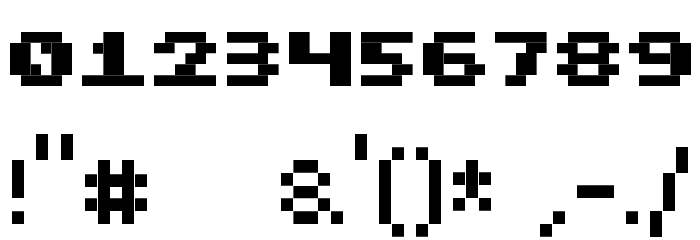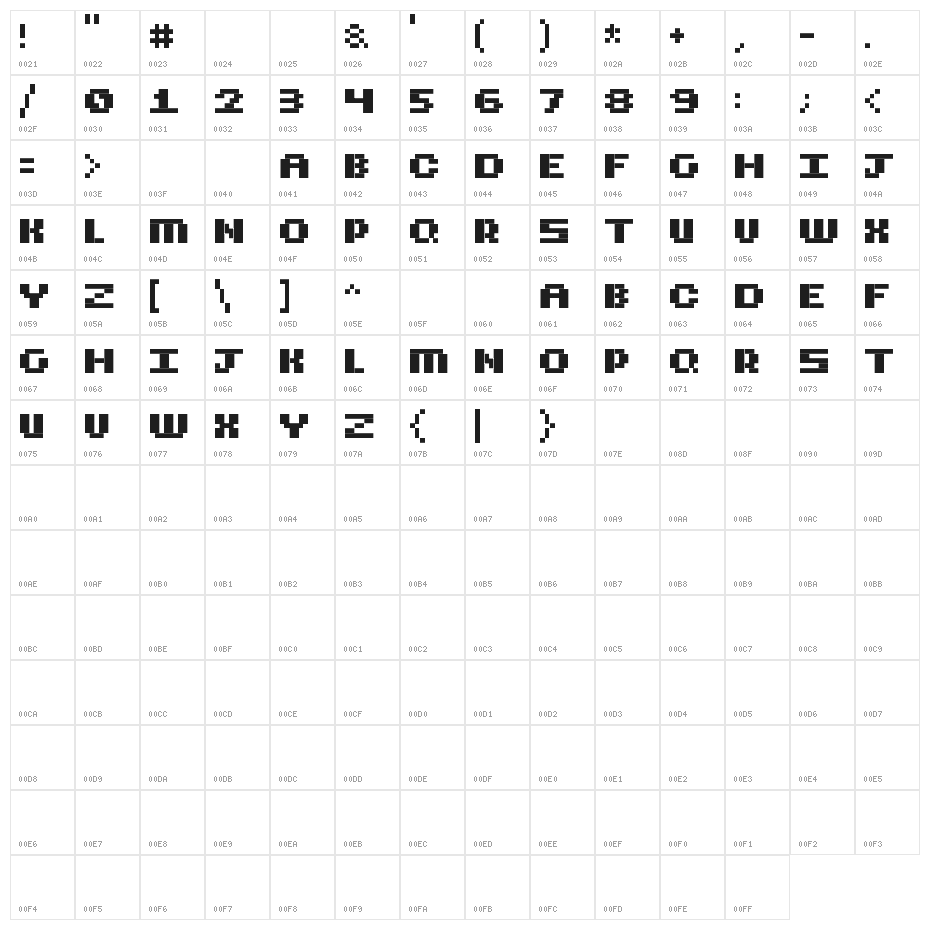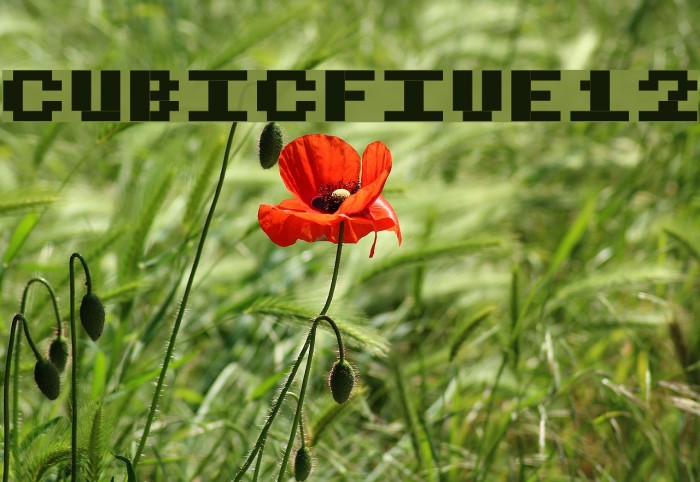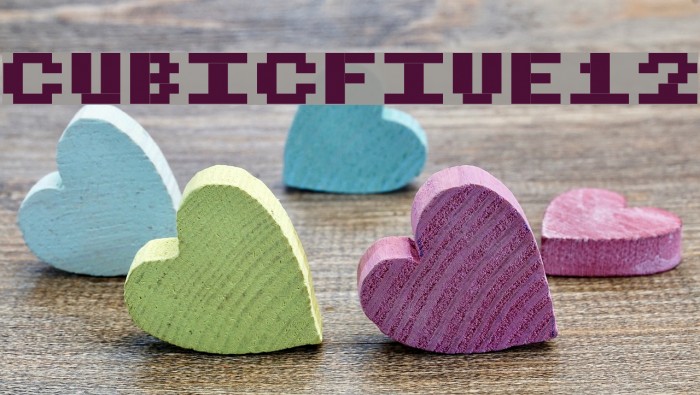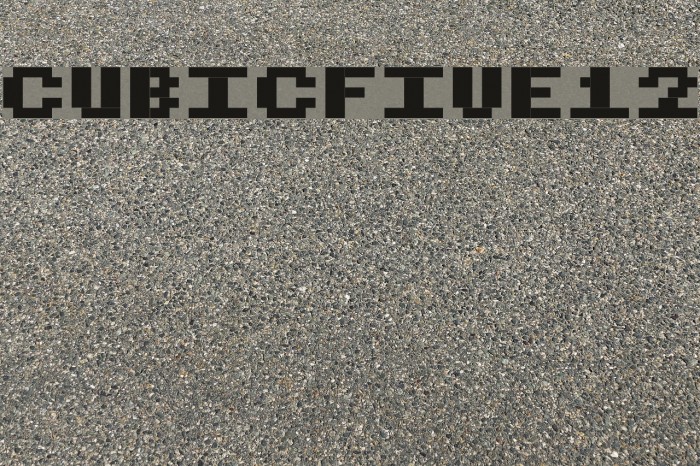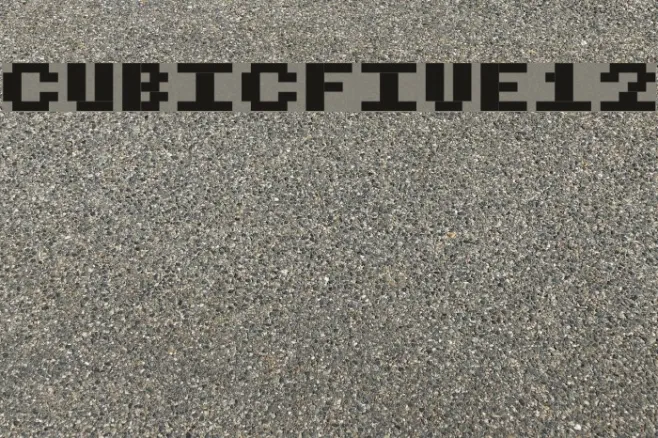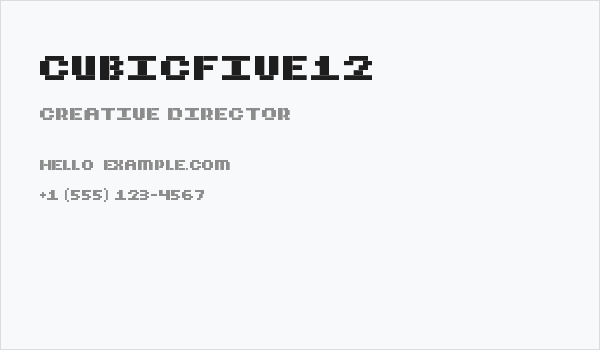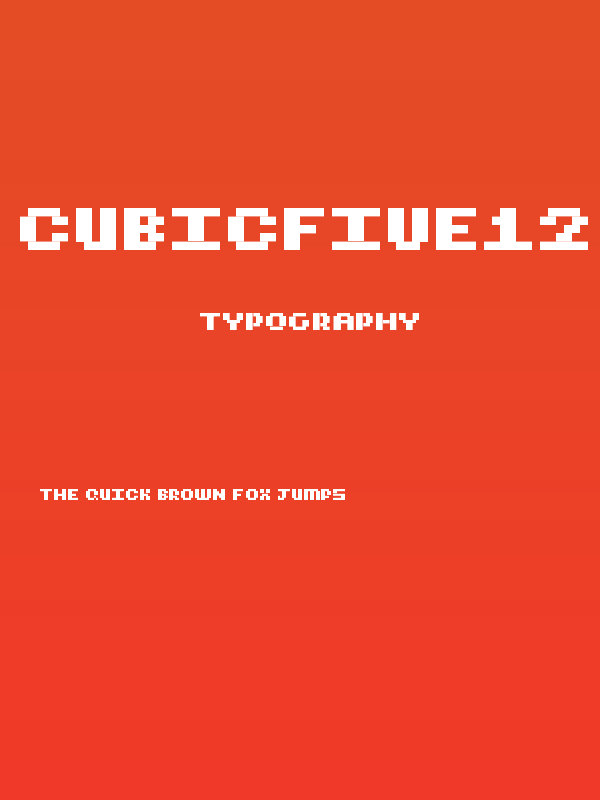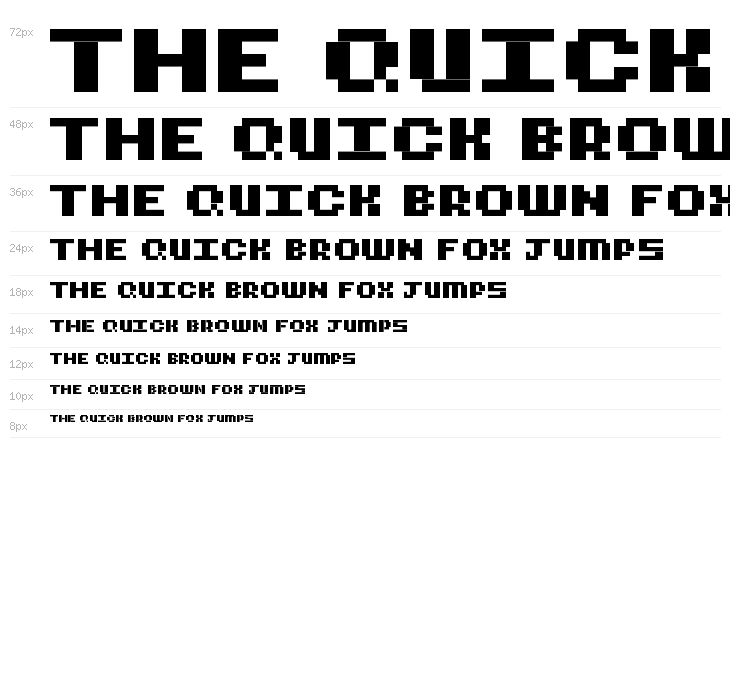
CubicFive12 Font
CubicFive12 Description
This font features a bold, geometric design with a pixelated, blocky appearance reminiscent of early digital displays and video games. Each character is constructed with a uniform grid-like structure, giving it a distinctly retro and digital aesthetic. The uppercase and lowercase letters maintain a consistent height, emphasizing the font's monospaced nature. Numbers and special characters follow the same design principles, ensuring a cohesive look across all glyphs. The font's simplicity and clarity make it ideal for projects that require a technological or nostalgic feel.
| Overall Style | Retro |
| Use Case | Logos, Headlines, Digital displays |
| Proposed Projects | Ideal for video game design, tech-themed posters, digital art, and retro-style branding. |